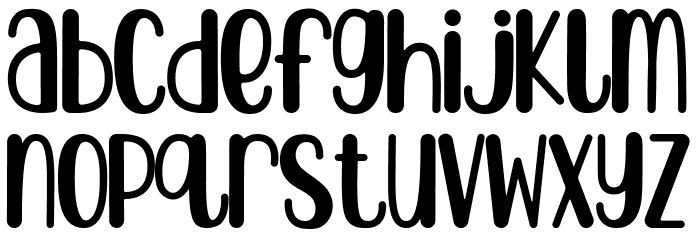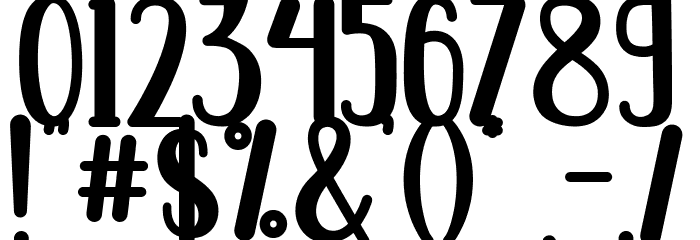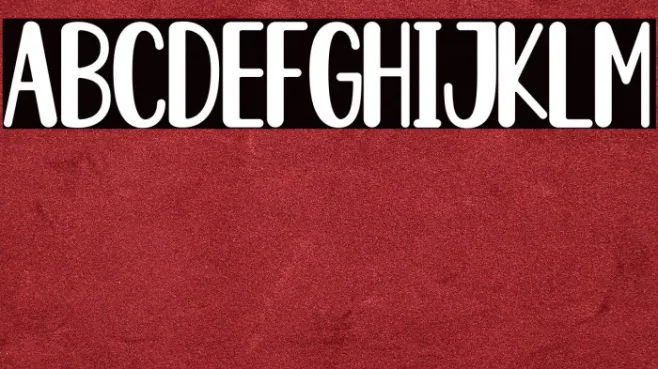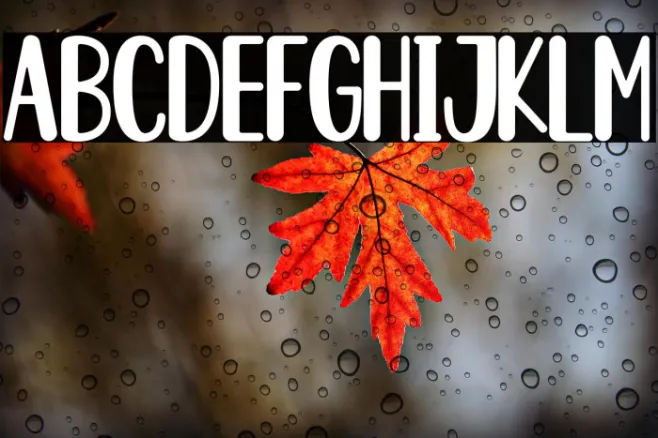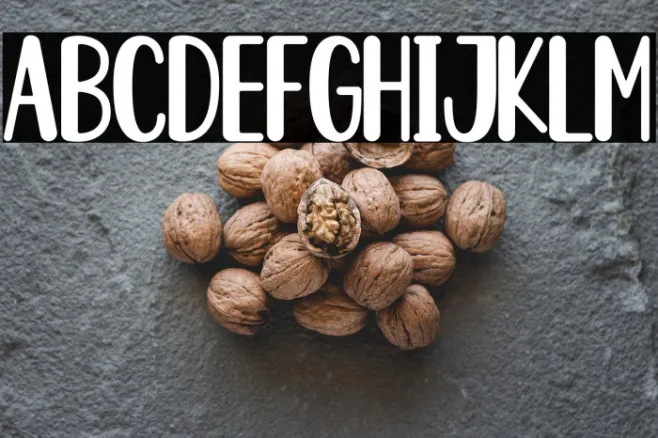
sonya cute Font
This playful and whimsical font features rounded, bubbly characters that convey a sense of fun and friendliness. The letters are bold and have a uniform stroke width, giving them a consistent and cohesive appearance. The uppercase and lowercase letters maintain a similar style, with slight variations in height and curve, adding to the font's charm. The numbers and special characters are designed to match the playful aesthetic, making them suitable for a variety of creative projects. Overall, this font exudes a youthful and energetic vibe, perfect for designs that aim to capture attention and convey a lighthearted message.
A playful, rounded font with bold, uniform strokes and a whimsical style.
- Font: sonya cute
- Proposed Projects: Ideal for children's books, playful branding, party invitations, and creative posters.
- Overall Style: Playful